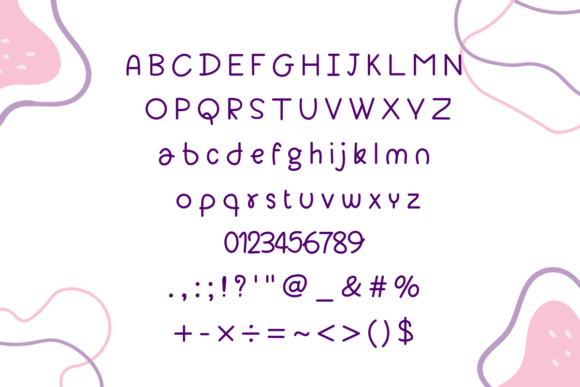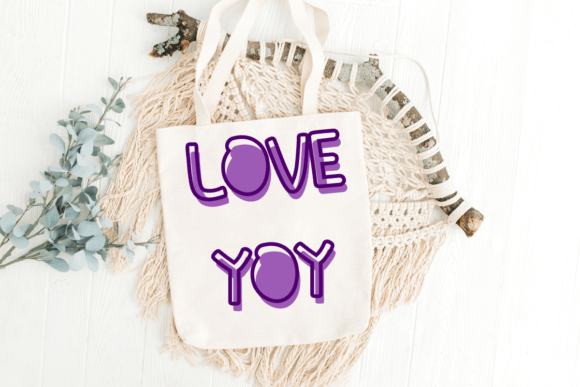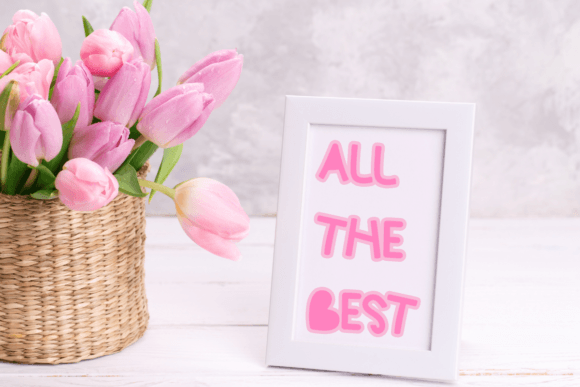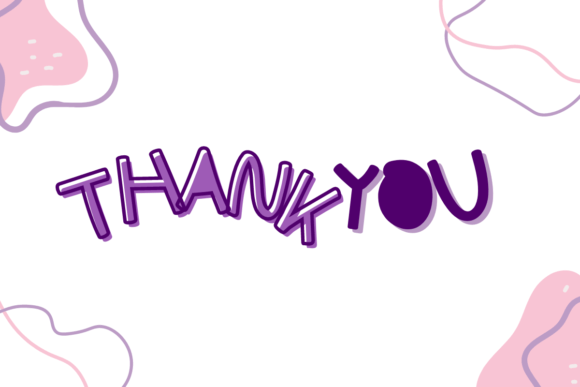
The Art of Always Font: Bringing Handwritten Charm to Your Designs
Remember that moment when you first picked up a pen and started writing in your diary? The feeling of putting your thoughts onto paper, the sound of the pen scratching against the page, and the satisfaction of creating something unique. That’s the magic of handwritten writing, and it’s exactly what the Always Font aims to capture.
The Always Font is a beautiful, handwritten typeface designed to bring a personal touch to your designs. Whether you’re taking notes, writing a heartfelt letter, or creating a greeting card, this font is the perfect companion. And the best part? Its versatility extends far beyond traditional uses – you can use it for banners, social media posts, mugs, and even t-shirts!
For designers, the Always Font is a valuable addition to their toolkit. With its natural, handwritten feel, it adds a touch of warmth and personality to any project. Whether you’re looking to create something elegant, playful, or inspiring, the Always Font is always up to the task.
Always Font Key Features
- Font Size: Always Font has a large character set with over 800 glyphs, making it suitable for a wide range of applications.
- Resolution: Always Font is designed to be scalable and legible at various resolutions, including 72 dpi, 96 dpi, and 144 dpi.
- Unique Characteristics: Always Font has a distinctive, modern design with a blend of geometric and organic shapes, making it suitable for digital and print applications.
- Language Support: Always Font supports a wide range of languages, including Latin, Cyrillic, Greek, and many others.
- Font Weight: Always Font is available in multiple weights, including light, regular, medium, bold, and extra bold, allowing for flexibility in typography.
Always Font Review
Always Font is a clean and modern sans-serif typeface that has gained popularity in recent years. I’ve had the chance to work with it, and here’s my honest review.
- ✨ Legibility: Always Font excels at legibility, making it perfect for body text. The letterforms are well-spaced and easy to read, even at smaller font sizes.
- ✨ Versatility: It comes in multiple weights and styles, allowing designers to choose the perfect fit for their project. From light and elegant to bold and attention-grabbing, Always Font has got you covered.
- ✨ Friendly: The font is friendly and approachable, making it suitable for a wide range of applications, from corporate to creative projects.
- ⚠️ Lack of Distinctiveness: While Always Font is clean and modern, it may lack the distinctive character that some designers crave. If you’re looking for a font that stands out, you might find Always Font a bit too safe.
- ⚠️ Limited Italic: The italic style is not as polished as the regular style, which can be a disappointment for designers who want a matching italic.
Overall, Always Font is a solid choice for any project. It’s easy to read, versatile, and friendly. While it may lack a bit of distinctiveness, it’s a reliable workhorse that gets the job done.
Use “Always Font” for:
- Headings and titles to create a consistent look.
- Body text to maintain readability.
- Branding and marketing materials to create a cohesive identity.
For optimal results, pair “Always Font” with a clean and modern design aesthetic.